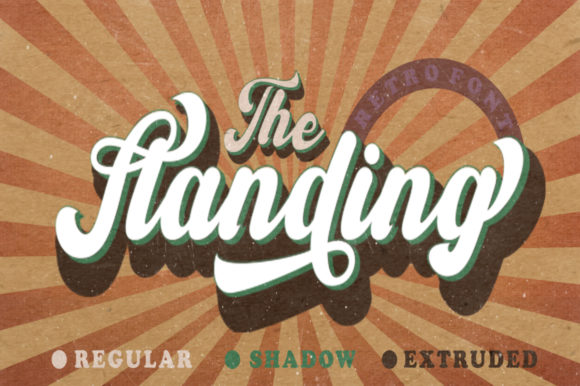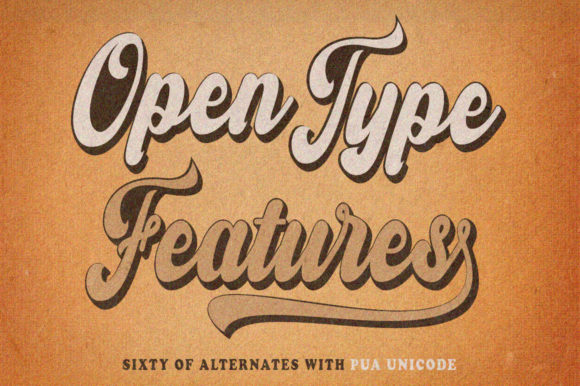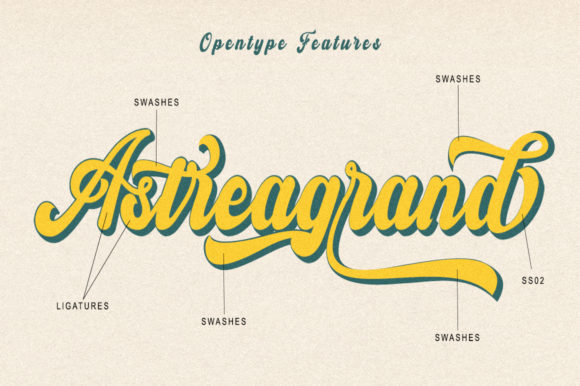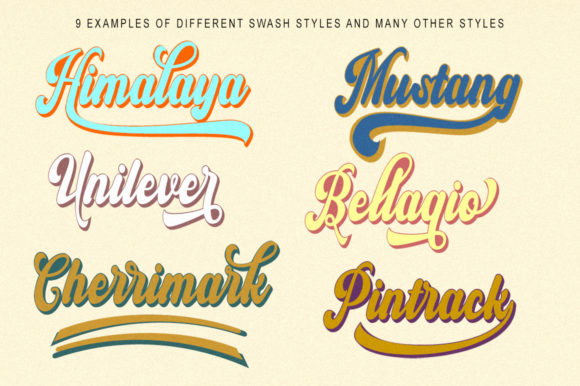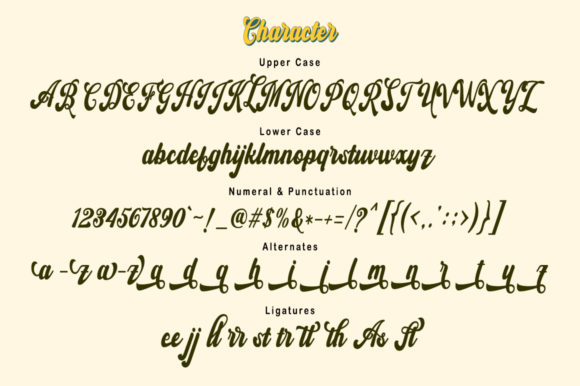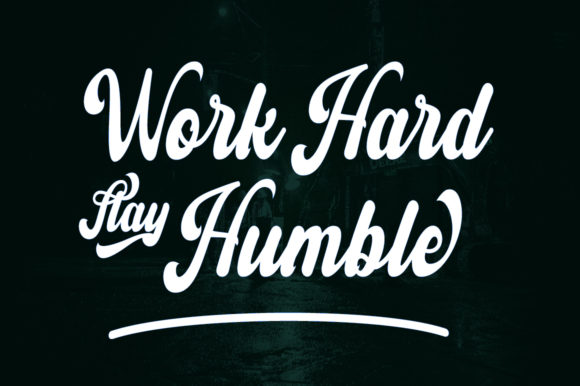
Ballingtone Font: A Timeless Charm for Your Next Design Project
Do you remember the feeling of rummaging through your grandmother’s old trunk, filled with vintage postcards, handwritten letters, and faded photographs? As you gently flipped through the pages, you stumbled upon a beautifully crafted invitation, written in a script that seemed to dance across the page. That’s the magic of the Ballingtone Font – a gorgeous and nostalgic script that evokes a sense of warmth and nostalgia.
Ballingtone Font is a unique and elegant script designed to add a touch of sophistication to your next design project. Whether you’re creating a wedding invitation, a branding campaign, or a simple greeting card, Ballingtone Font is the perfect choice to make your design stand out. Its timeless charm makes it a valuable asset for designers who want to create something truly special.
- Unique Characteristics: Ballingtone features a unique blend of vintage and modern elements, with a focus on elegance and sophistication
Ballingtone Font Review
I recently had the chance to work with the Ballingtone Font, and I must say it’s a unique and intriguing choice. Here’s what I think:
- The Ballingtone Font has a distinct, vintage feel that’s perfect for creating a retro or nostalgic vibe in your design.
- The font is highly customizable, allowing you to adjust the weight, spacing, and other aspects to fit your specific needs.
- The Ballingtone Font is well-suited for use in headlines, titles, and other prominent text elements, where you want to draw attention and make a statement.
- The Ballingtone Font may be a bit too ornate for some projects, particularly those that require a more straightforward or minimalistic approach.
- The font’s unique characteristics can make it difficult to read in certain situations, such as when used in body text or at very small sizes.
- The Ballingtone Font may not be the best choice for projects where you need a highly legible font for large blocks of text.
Overall, the Ballingtone Font is a solid choice for designers who want to add a touch of elegance and sophistication to their work. However, it’s essential to consider the specific requirements of your project and use the font judiciously to get the best results.
Common Use Cases for Ballingtone Font
The Ballingtone font is commonly used in:
- Food and beverage labels.
- Special event signage.
What is the recommended font size for using the Ballingtone Font?
The recommended font size for the Ballingtone Font depends on the specific application and intended use. For body text, a font size between 12 and 14 points is recommended. For headings and titles, a font size between 18 and 24 points is recommended. Experiment with different font sizes to find the optimal size for your design